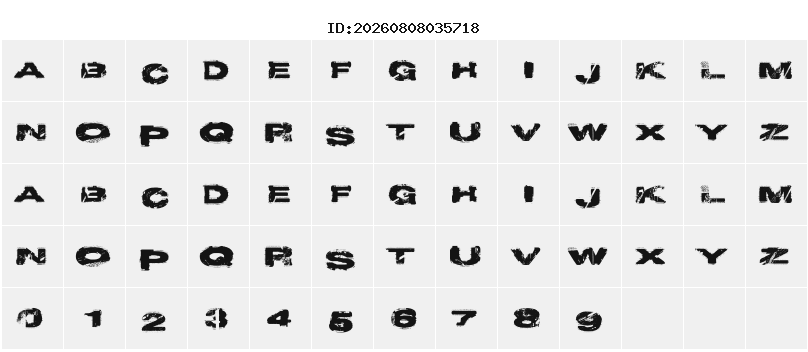
• Font Name: Project Y
• Designer: David Kerkhoff
About Project Y.ttf
Project Y.ttf is a modern, elegant sans-serif font designed for ultimate readability and visual harmony. Perfect for branding, headlines, web design, and print materials.